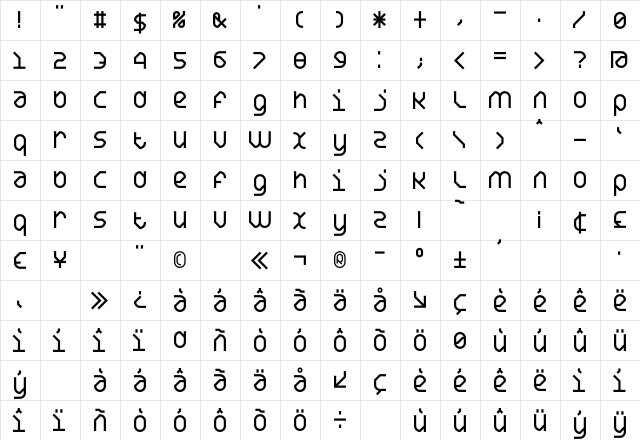
DS Yakuti55 Regular Font Preview
DS Yakuti55 Regular
DS Yakuti55 Regular Font Details
Design Context for DS Yakuti55 Typeface
DS Yakuti55 is a composed and adaptable typeface that performs quietly and consistently across a wide range of design contexts.